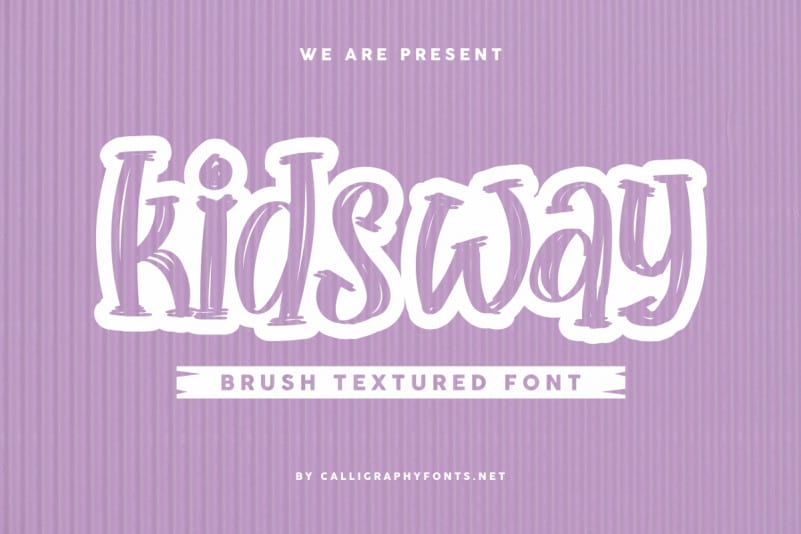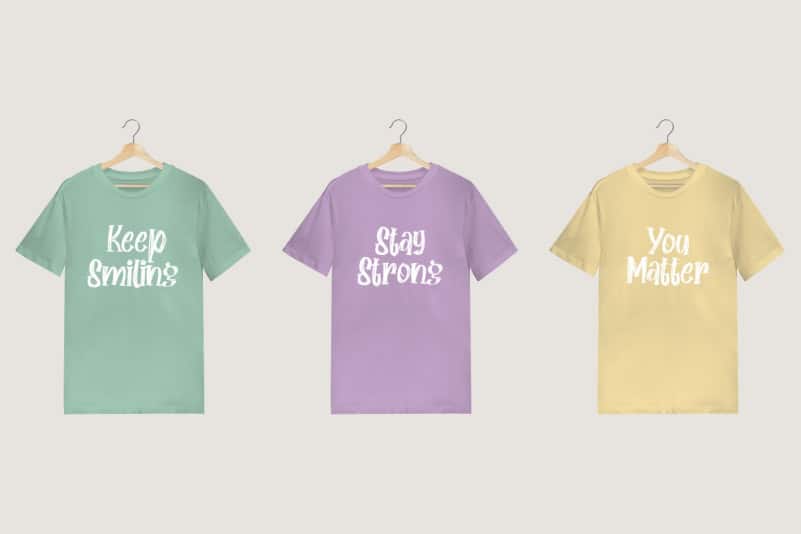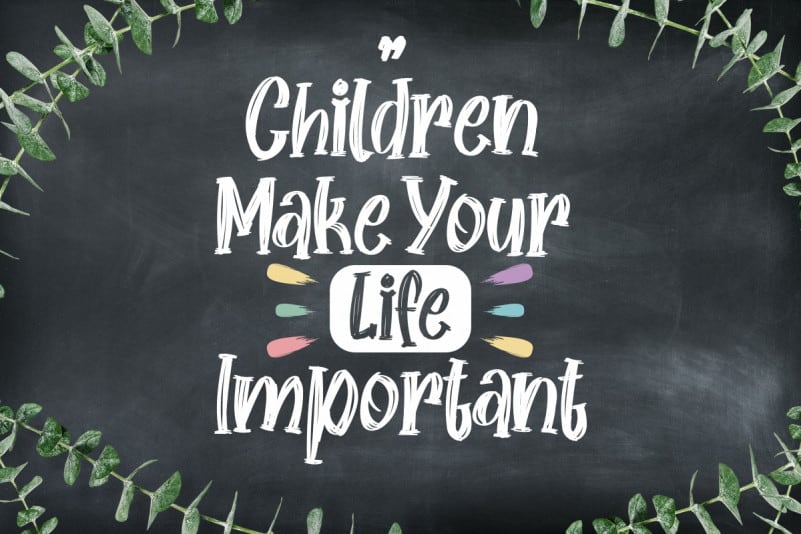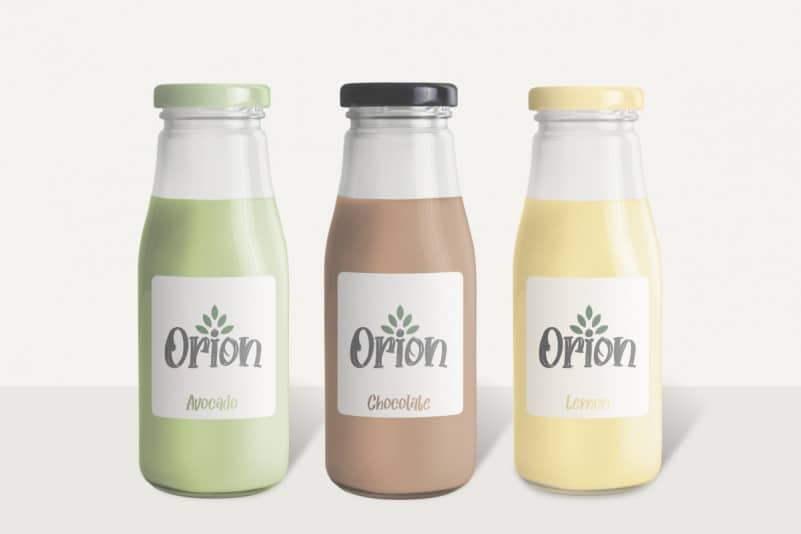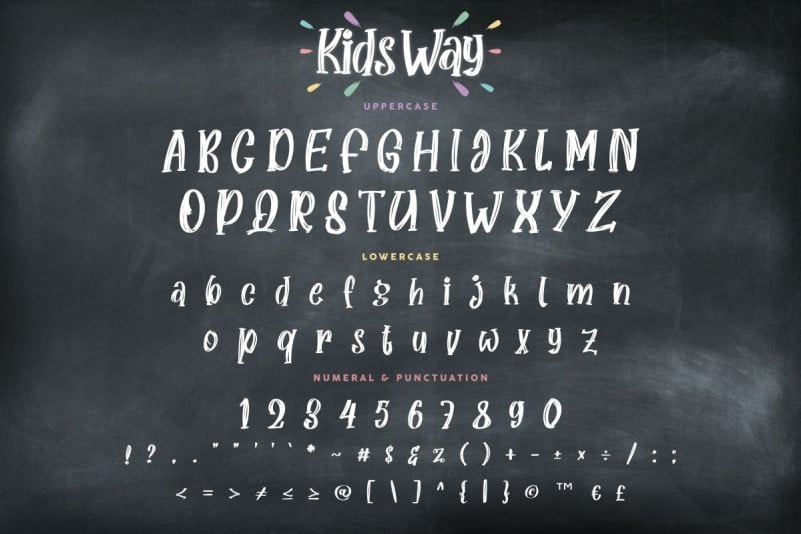
KidsWay Script Font
KidsWay Script Font is a Handwriting script font. The style of this font are kids, fun, school, chalk, pencil, crayon and hand made font.